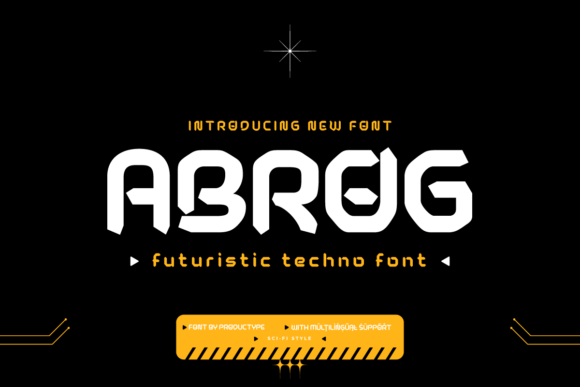
Unlock the Future of Design with Abrog Font
Have you ever stared at a blank page, feeling the weight of a design project looming over you? The cursor blinks, taunting you to create something truly innovative. You want to transport your audience to a world of tomorrow, but struggle to find the perfect tool to bring that vision to life. Enter Abrog Font, a game-changing technology font that’s poised to revolutionize the way you design.
Abrog Font is more than just a font – it’s a gateway to a futuristic world where sustainability meets cutting-edge design. Each character is meticulously crafted to evoke a sense of innovation, making it the perfect addition to any design project. Whether you’re a seasoned pro or just starting out, Abrog Font is an essential tool that will elevate your work to new heights.
Abrog Font Key Features
• Font Family: Abrog is a modern sans-serif font family designed for digital use.
• Font Sizes: Abrog Font is designed to be highly legible at various font sizes, including small sizes (8-10pt) and large sizes (14-24pt).
• Unique Characteristics: Abrog Font features a clean and minimalist design, with a focus on legibility and readability. It also includes a wide range of language support and advanced typographic features.
• Font Styles: Abrog Font includes a range of font styles, including light, regular, medium, bold, and extra bold weights, as well as italics and obliques.
Abrog Font Review
Overall, I found Abrog Font to be a unique and stylish addition to any design project. Here are some of its standout features:
• ✨ The font’s bold, geometric shapes create a striking visual effect that draws attention. It’s perfect for headlines and titles.
• ✨ Abrog Font comes in a range of weights, from light to bold, giving designers flexibility when creating typography-based designs.
• ✨ The font’s versatility makes it suitable for a wide range of design applications, from logos to digital interfaces.
• ⚠️ The font may not be the best choice for body text, as its bold and geometric style can be overwhelming in large quantities.
• ⚠️ Abrog Font may require additional styling or formatting to achieve a cohesive look in certain design contexts.
• ⚠️ Some users may find the font’s unique style polarizing, and it may not appeal to those who prefer more traditional or conservative typography.
Overall, Abrog Font is a solid choice for designers who want to add a touch of modernity and sophistication to their projects. While it may have some limitations, its unique style and versatility make it a valuable addition to any design toolkit.
The Abrog Font is ideal for creative projects, such as:
• Designing posters and flyers
• Creating social media graphics
• Developing branding materials
• Adding a touch of elegance to presentations and reports